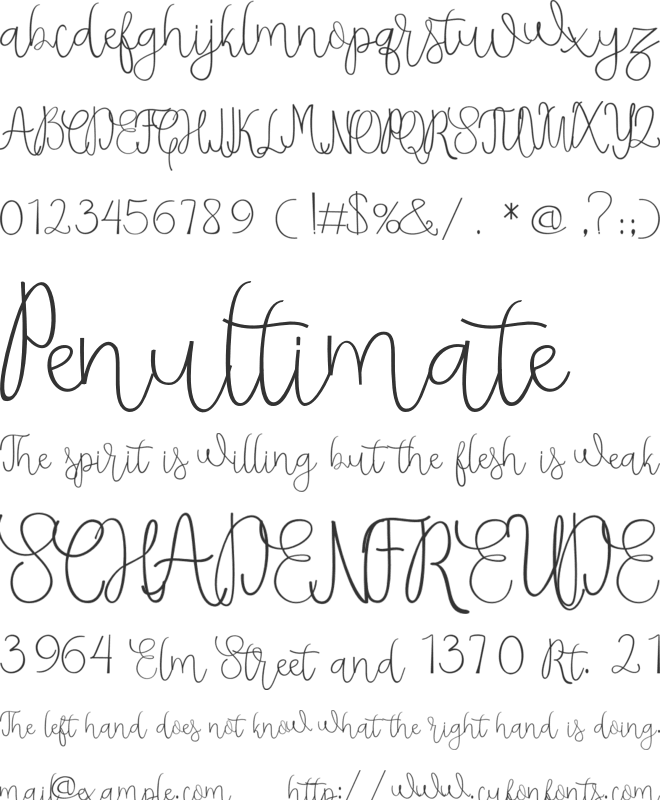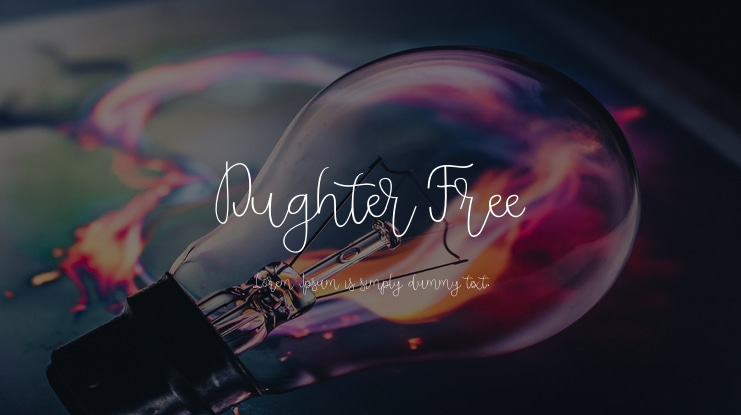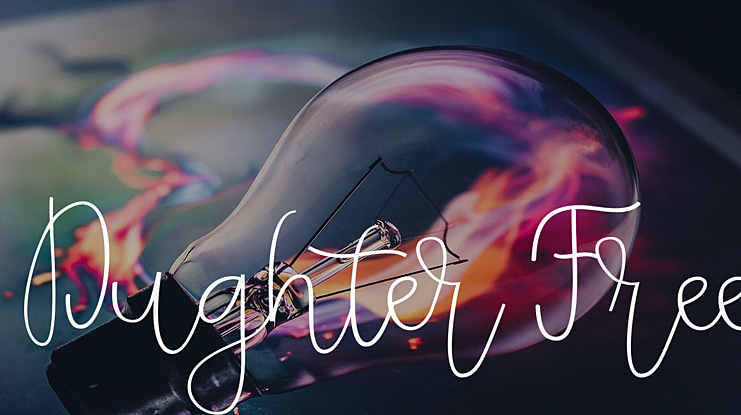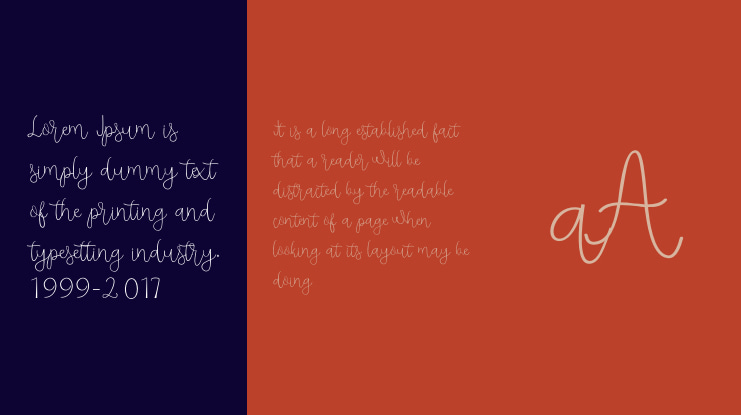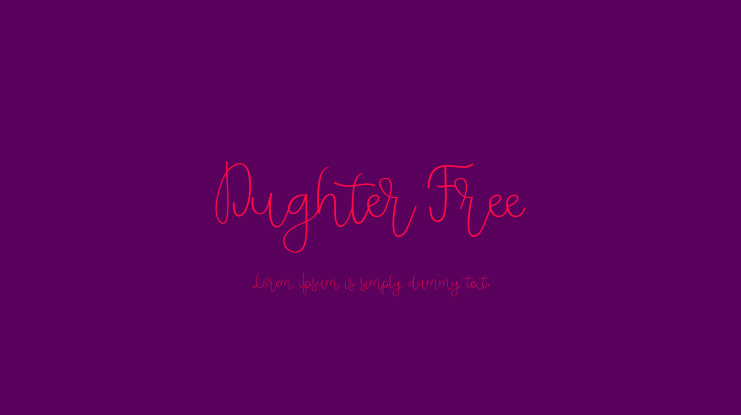
Dughter Free Font
Dughter is a script font that has the characteristic handwriting, it is very suitable to make certain label and event business and you could be using for a unique piece. Visit here to get full version